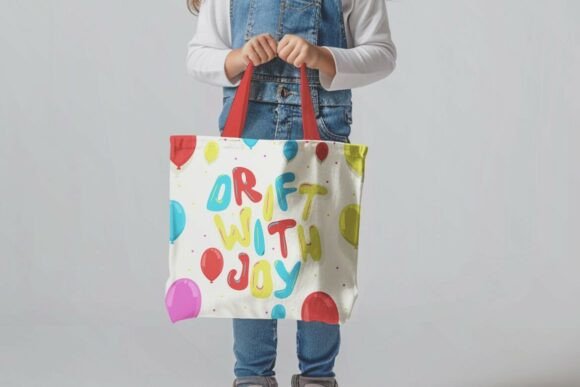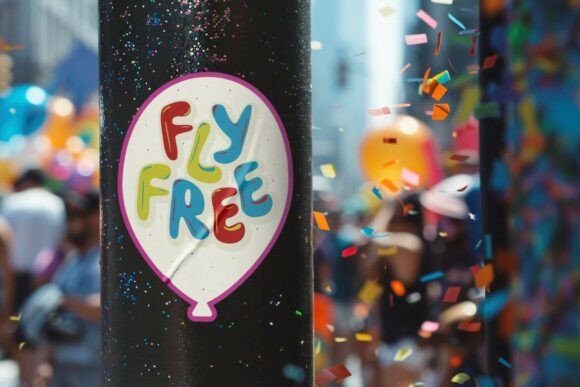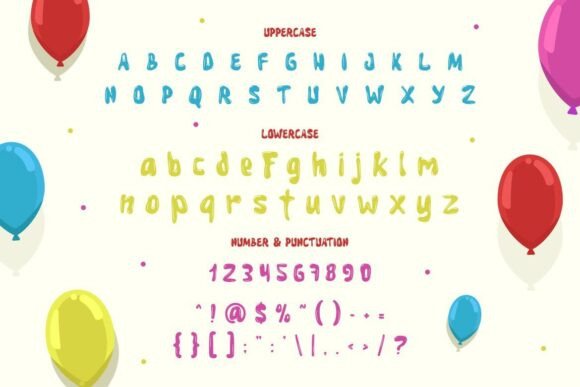
Get Ready to Pop with Creativity!
Remember the excitement of blowing up balloons for a birthday party or watching kids chase after them at a carnival? That same sense of joy and wonder can now be captured in your designs with the Bouncy Balloon Font.
This delightful typeface is designed to add a playful touch to your creative projects. With its glossy, inflated appearance and rounded edges, the Bouncy Balloon Font mimics the look of real balloons, complete with subtle highlights that give it a three-dimensional effect. Its vibrant colors and smooth curves make it perfect for kid-friendly, celebratory, and fun designs, from party invitations to children’s books and birthday posters.
Whether you’re a designer looking to add some whimsy to your projects or a business owner seeking to brand your company with a youthful and energetic vibe, the Bouncy Balloon Font is sure to bring a smile to your audience’s faces.
Bouncy Balloon Font Key Features
- Unique Characteristics: A playful, handwritten style with a bouncy feel, making it ideal for creating eye-catching headings and titles.
Bouncy Balloon Font Review
At first glance, the Bouncy Balloon Font is a fun and playful addition to any design project. ✨ The rounded edges and gentle curves give it a childlike charm that’s perfect for creating a sense of whimsy and wonder. The font is also highly customizable, allowing designers to adjust the size, color, and style to fit their specific needs.
- ✨ Customization options for size, color, and style
- ✨ Playful and whimsical design that adds a touch of fun to any project
- ✨ Versatile and can be used for a wide range of design applications
- ⚠️ May not be suitable for formal or professional projects due to its playful nature
- ⚠️ Can be difficult to read at very small sizes, making it less ideal for body text
- ⚠️ Limited to a single weight and style, which may limit its use in more complex designs
In conclusion, the Bouncy Balloon Font is a fun and versatile addition to any design project. While it may not be suitable for every application, it’s perfect for projects that require a touch of whimsy and playfulness. Overall, I’d give it 4 out of 5 stars – it’s a great choice for designers looking to add some personality to their work.
Use the Bouncy Balloon Font to add a playful and whimsical touch to your designs. It’s perfect for:
- Children’s party invitations
- Birthday and graduation cards
- Marketing materials for fun and quirky brands
Remember to adjust the font size and style to ensure it’s readable and visually appealing.
Alternatives to Bouncy Balloon Font
The Bouncy Balloon Font is a playful, handwritten font used for various design purposes. However, there are other alternatives that can be used in different situations.
Great Vibes is a modern, script font designed to convey a sense of elegance and sophistication. It is ideal for use in branding, advertising, and editorial design. Great Vibes is more refined and polished compared to Bouncy Balloon Font, making it suitable for high-end designs.
Carolyna Pro is a handwritten font with a touch of sophistication and elegance. It is perfect for use in fashion, beauty, and lifestyle branding. Carolyna Pro is more versatile than Bouncy Balloon Font and can be used for a wide range of design purposes, from logos to packaging.
Pacifico is a beautiful, modern script font that evokes a sense of relaxation and tranquility. It is ideal for use in travel, hospitality, and wellness branding. Pacifico is more subtle and understated compared to Bouncy Balloon Font, making it suitable for designs that require a calming atmosphere.